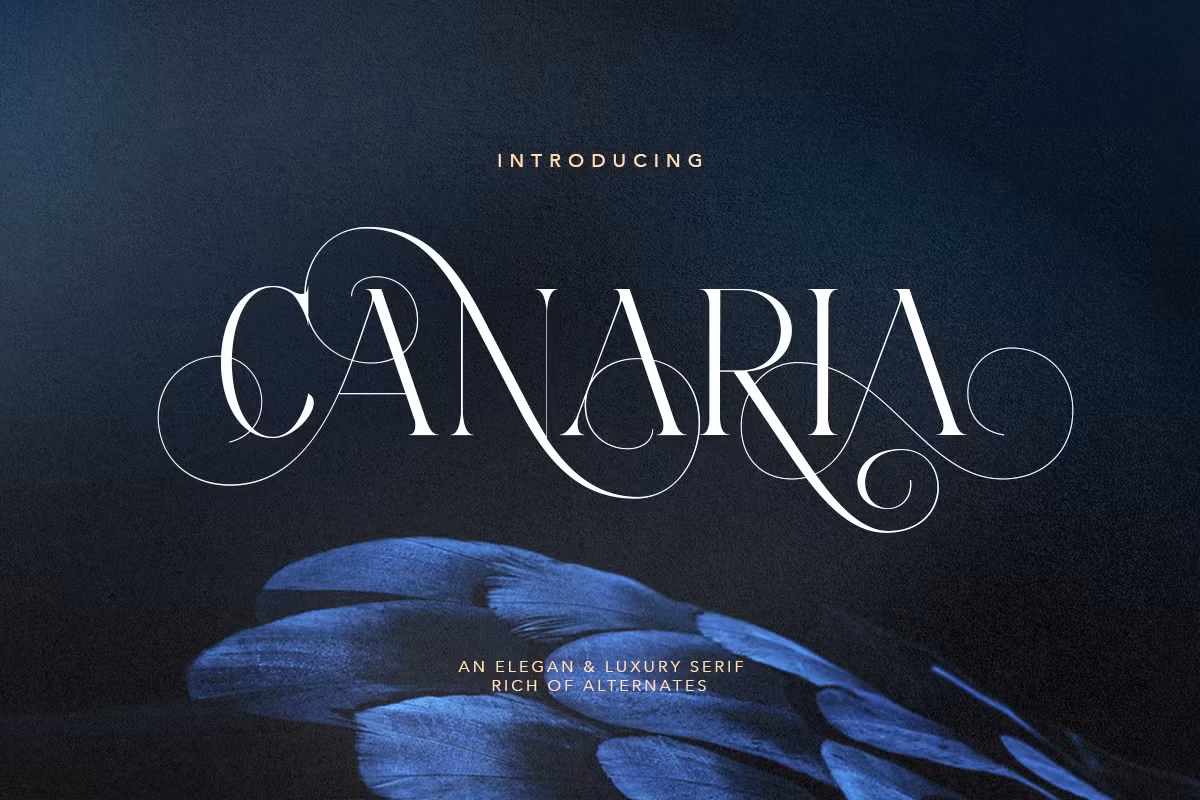
Canaria Fancy Light Serif Font Free Download is an elegant and sophisticated serif typeface that combines intricate design with a modern light touch. Featuring delicate serifs, slender strokes, and a refined style, this font is perfect for luxury branding, editorial layouts, invitations, logos, and more.
The light weight and elegant curves of Canaria give it a unique and graceful look, making it ideal for projects that require a touch of sophistication and timeless beauty. Whether you're designing a high-end fashion brand or crafting a stylish wedding invitation, this font adds a delicate, upscale feel to your typography.